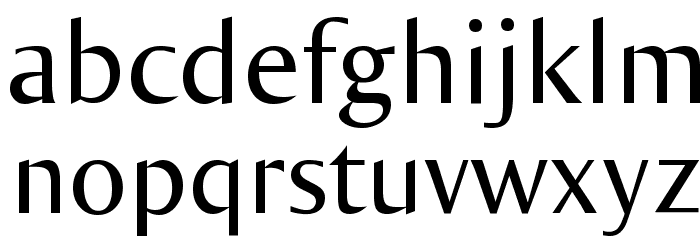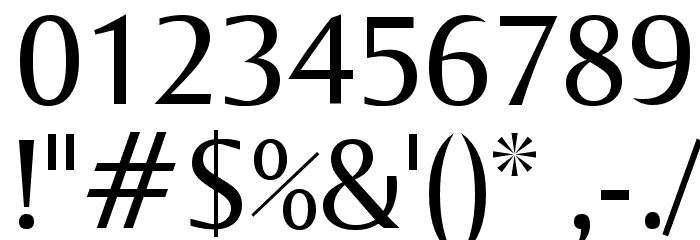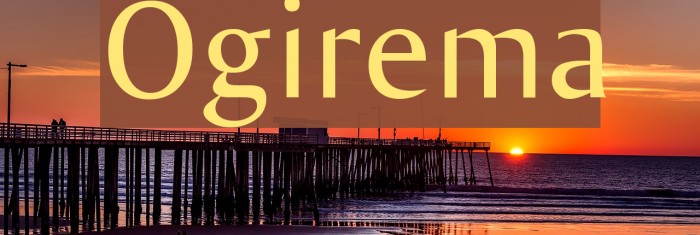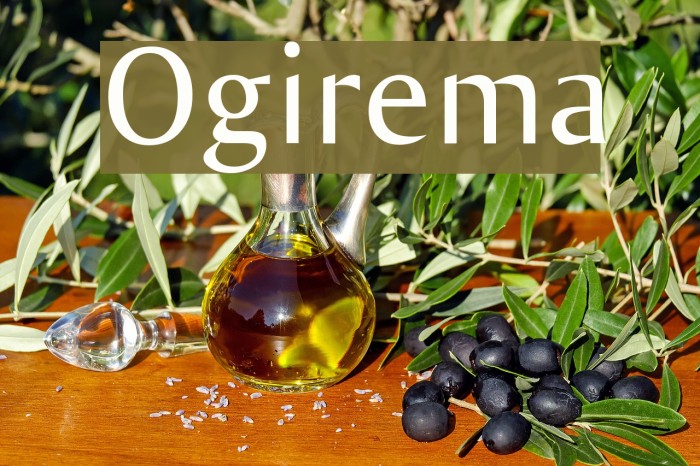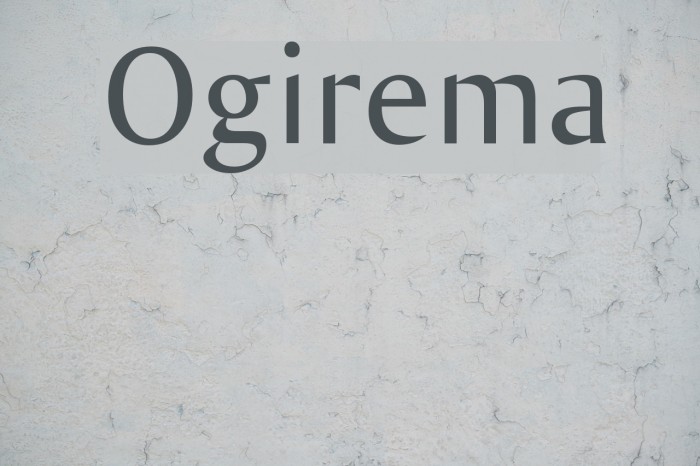
Ogirema Font
This font features a clean and modern design with a sans-serif style. The characters are well-proportioned, offering a balanced and harmonious appearance. The uppercase letters are slightly taller than the lowercase, providing a clear distinction between the two. The numerals are consistent in height with the uppercase letters, ensuring readability. Special characters are designed to complement the overall aesthetic, maintaining the font's sleek and professional look. The strokes are uniform, contributing to the font's legibility and versatility across various applications.
A modern sans-serif font with clean lines and balanced proportions.
- Category: Sans-Serif